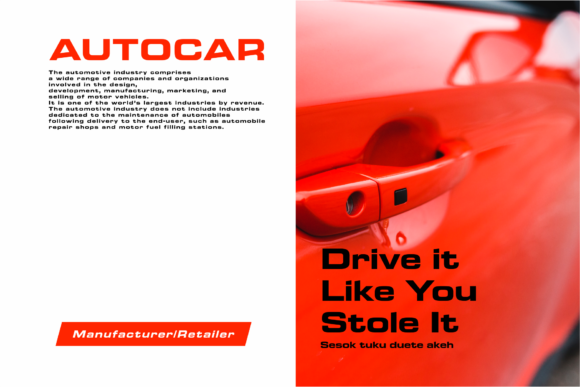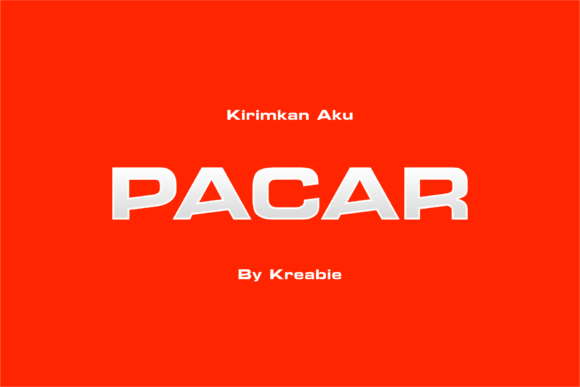
Introduction to Pacar Font
Pacar is a cool, bold and modernly designed display font.
Add it confidently to your favorite creations and let yourself be amazed by the outcome generated .
Key Features of Pacar Font
Why Choose Pacar Font?
Pacar Font offers exceptional quality and versatility, making it a valuable addition to your design toolkit. Whether you’re creating for personal projects or commercial use, Pacar Font delivers professional results.